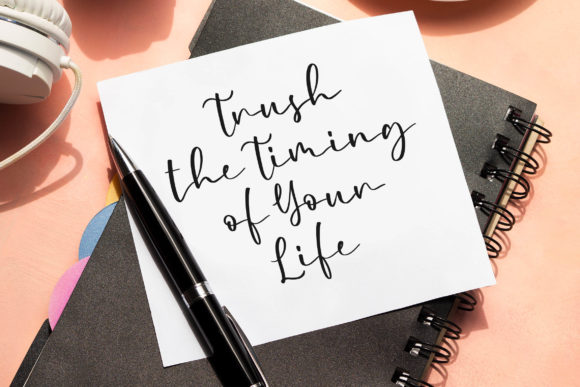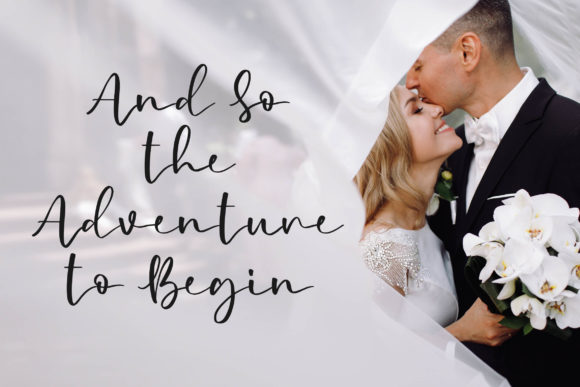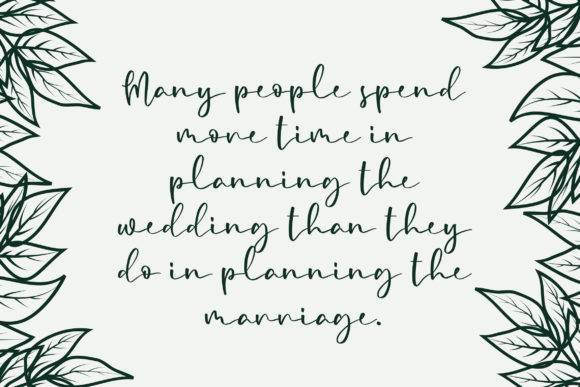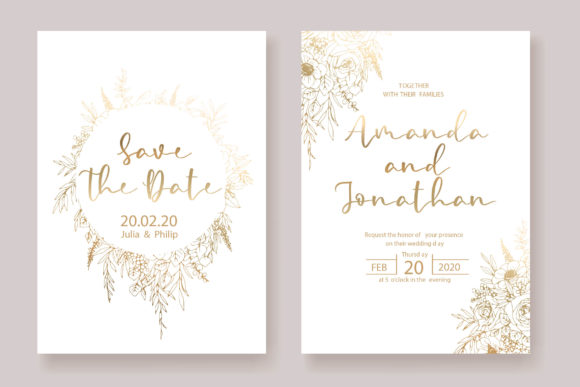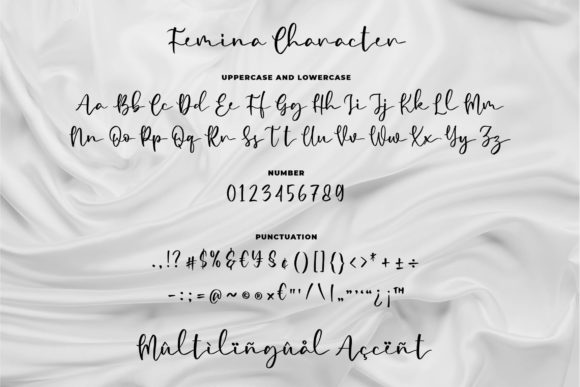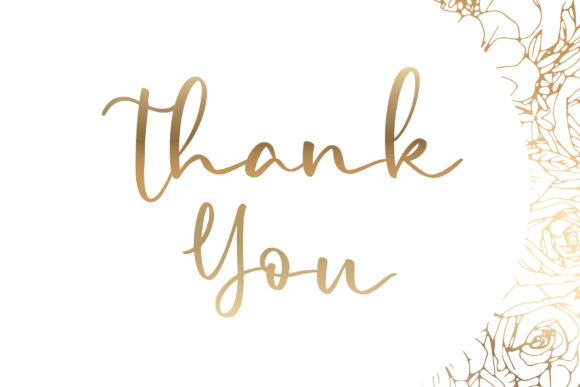
The Quest for the Perfect Font: Discovering Femina
I still remember the design project that led me to Femina Font. I was working on a branding project for a luxury wedding planner, and I needed a font that exuded elegance, sophistication, and a touch of whimsy. I spent hours scouring the internet, trying out font after font, but nothing seemed quite right. That was until I stumbled upon Femina Font. ✨
A First Impression: What Makes Femina Special
Femina Font is a stunning handwritten font that feels equally charming and elegant. It’s a stylish homage to classic calligraphy, with a varying baseline, smooth lines, gorgeous glyphs, and stunning alternates. Whether you’re a designer, crafter, or creative hobbyist, Femina Font is sure to captivate your audience. ✅
An Honest Review: The Good and the Quirks
- 💫 Elegant and sophisticated feel
- ✨ Unique, varying baseline that adds character
- 🎨 Gorgeous glyphs and alternates for added creativity
- 👍 Highly legible, even at smaller sizes
- 🤔 Some users may find the font a bit too ornate for certain projects
- ⚠️ Limited use of numerals and special characters
The Designer Inspiration Behind Femina Font
Femina Font was inspired by the classic calligraphy of the past, with a modern twist. The designer wanted to create a font that was both elegant and charming, with a unique character that would stand out in any design. The result is a font that feels both sophisticated and approachable.
Q: What is Femina Font best used for?
A: Femina Font is best used for projects that require an elegant and sophisticated feel, such as wedding invitations, luxury branding, and high-end advertising.
Q: Is Femina Font suitable for body text?
A: While Femina Font is highly legible, it’s best used for headlines and titles rather than body text. However, it can be used for short paragraphs or captions.